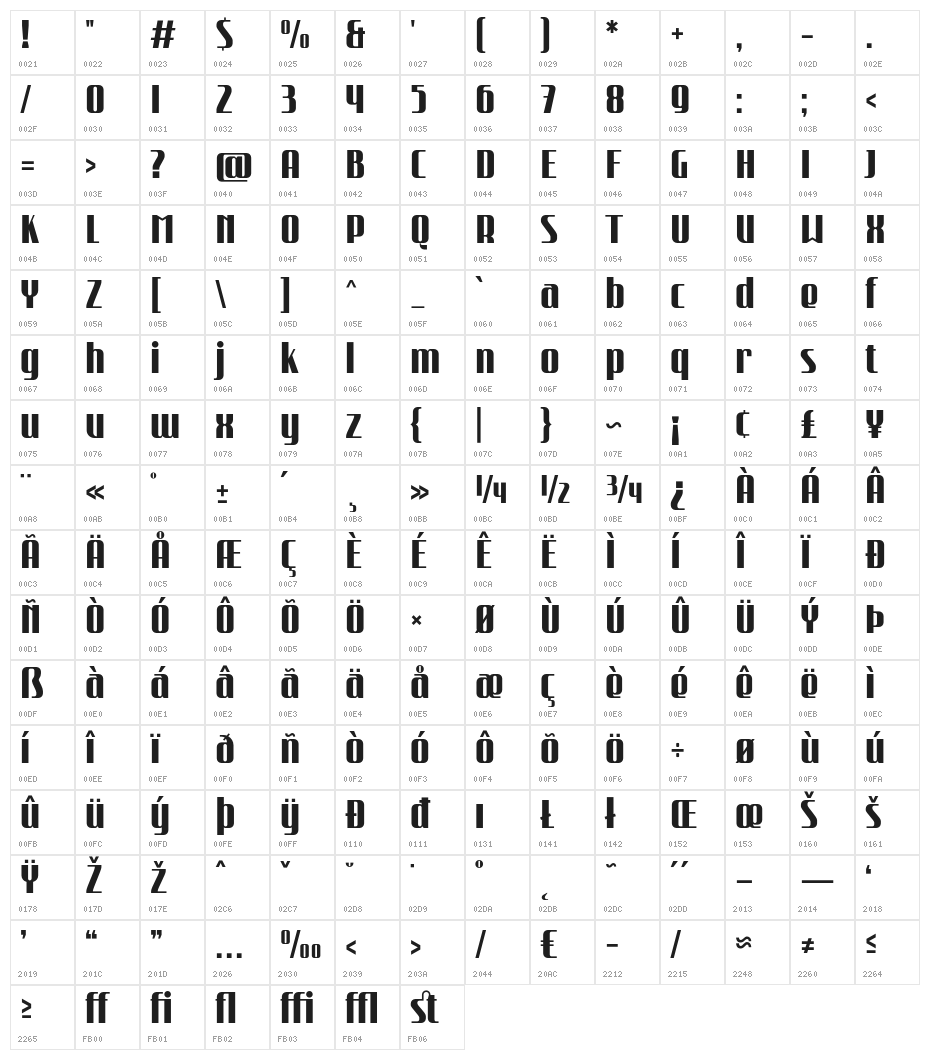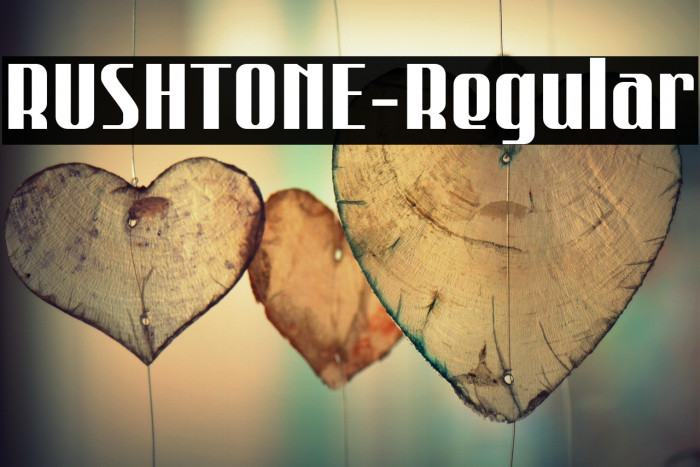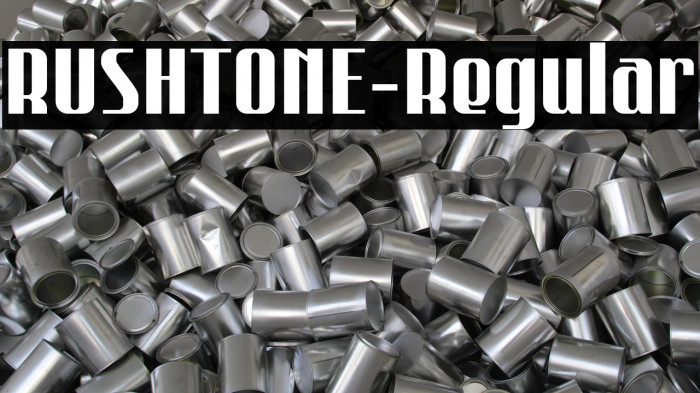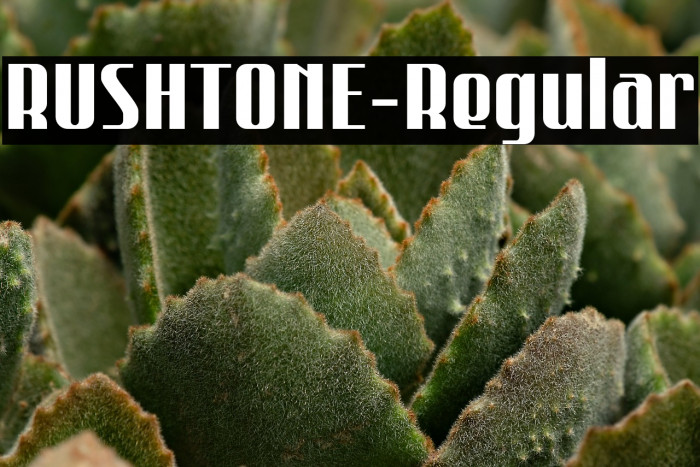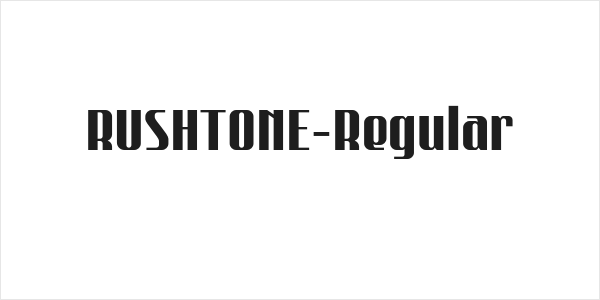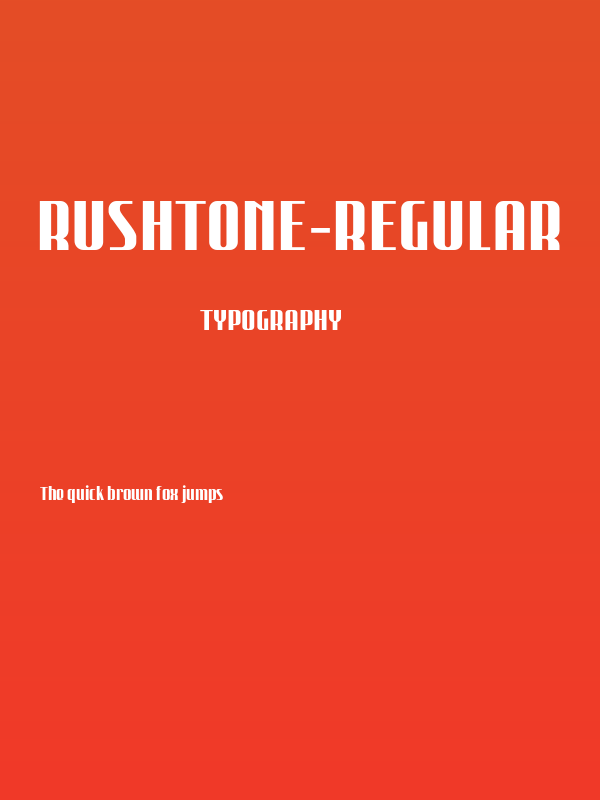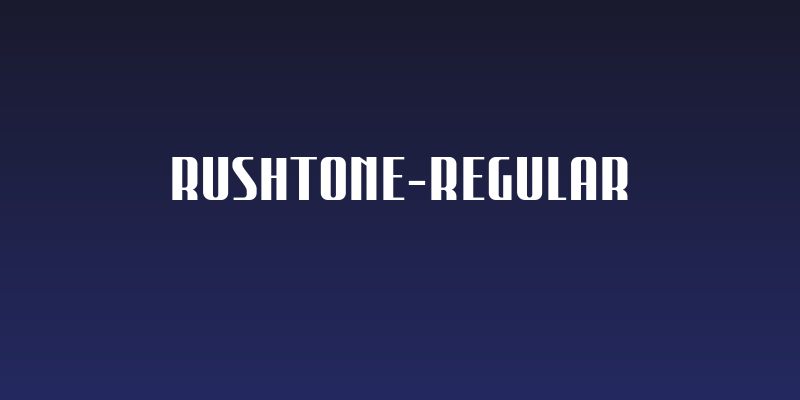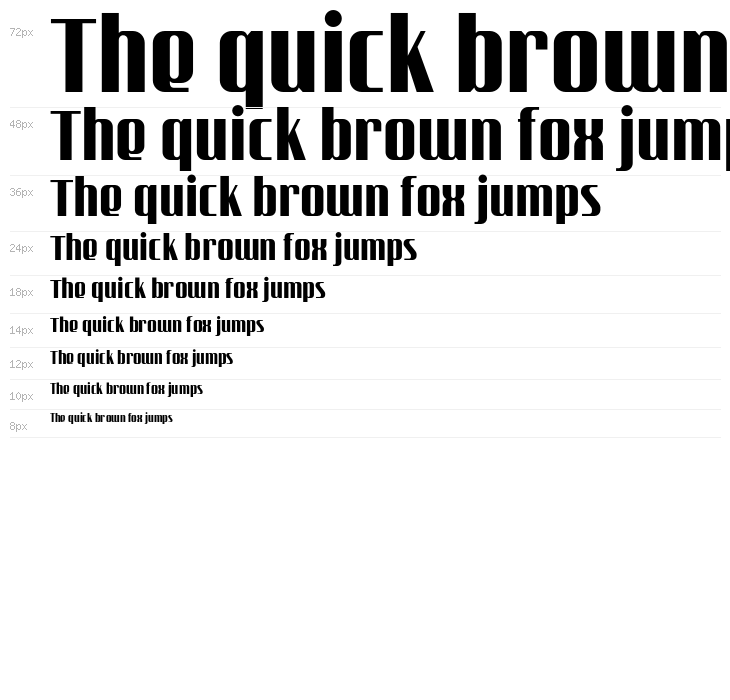
RUSHTONE-Regular Font
RUSHTONE-Regular Description
This font features a bold and striking design with a modern and geometric aesthetic. The characters are tall and narrow, giving them a condensed appearance that is both sleek and efficient. The uppercase letters are particularly prominent, with sharp angles and clean lines that convey a sense of strength and stability. The lowercase letters maintain the same geometric style, ensuring consistency across the typeface. The numerals are equally bold, making them stand out clearly. Special characters are designed to match the overall style, providing a cohesive look. This font is ideal for projects that require a strong visual impact, such as branding, advertising, and headlines.
| Width | Condensed |
| Use Case | Headlines, Logos, Branding |
| Proposed Projects | Ideal for branding, advertising, headlines, and any project needing a strong visual impact. |